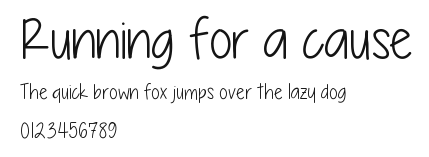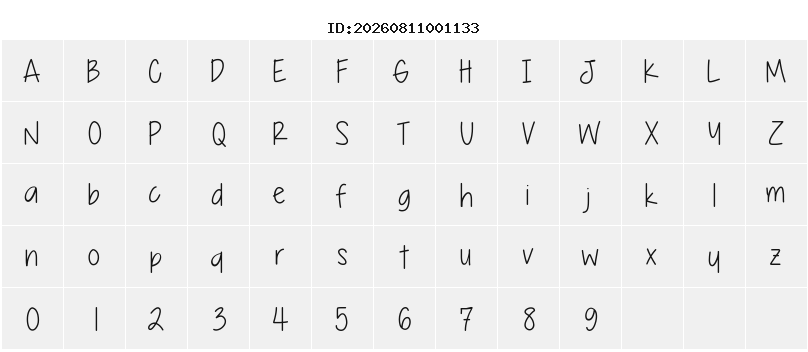
• Font Name: Running for a cause
• Font ID: Vanessa Bays: Running for a cause
• Full Font Name: Running for a cause
• PostScript Name: Running for a cause
About Running for a cause.ttf
Running for a cause.ttf is a modern, elegant sans-serif font designed for ultimate readability and visual harmony. Perfect for branding, headlines, web design, and print materials.